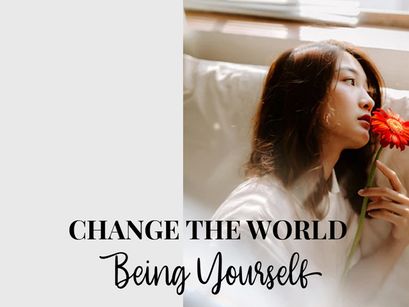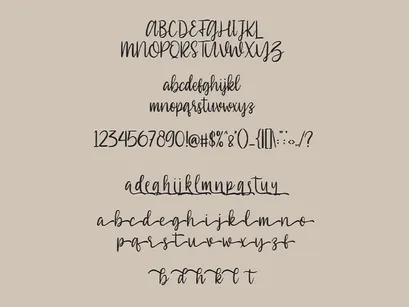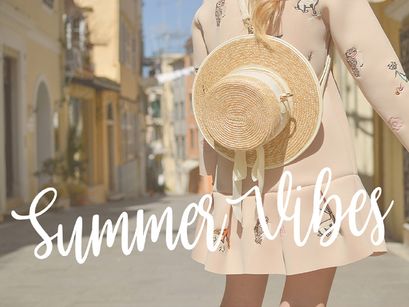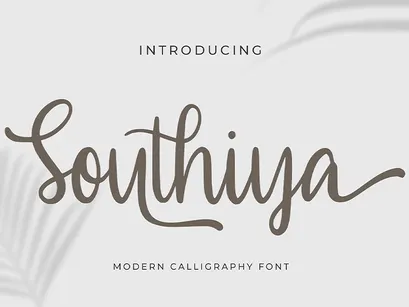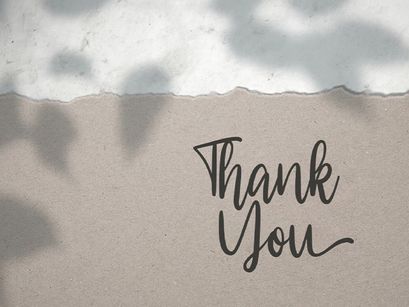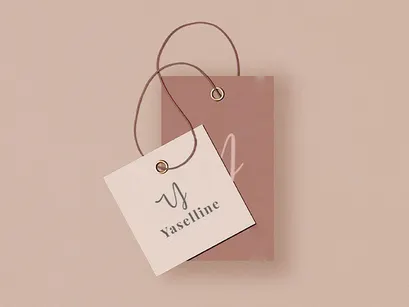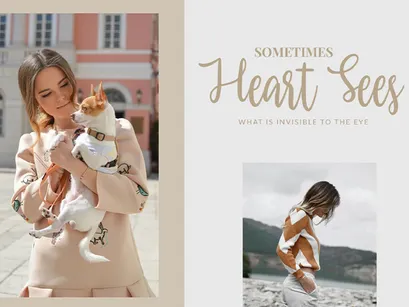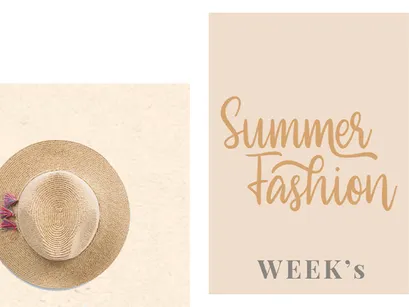
Southiya - Modern Calligraphy Font
Introducing Southiya - Modern Calligraphy Font
This Font Template contains Modern, Elegant, creative, Professional and Unique Concept.
• Uppercase & Lowercase letters
• Numbering and Punctuations
• Ligatures
• Alternative Characters Ready
• Multilingual Support